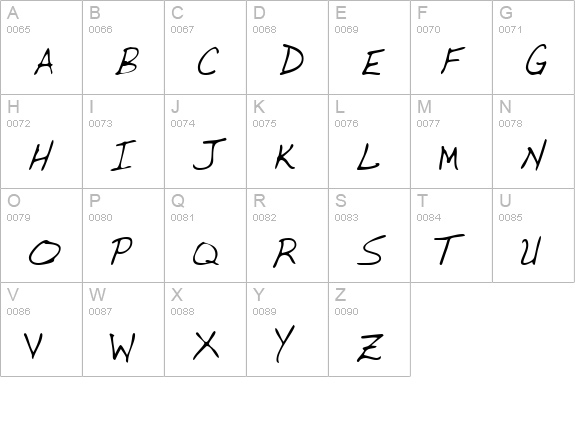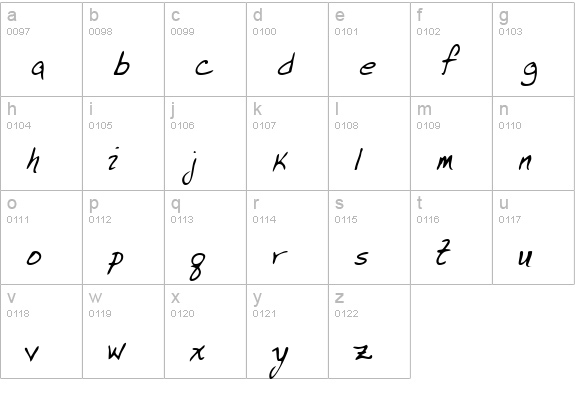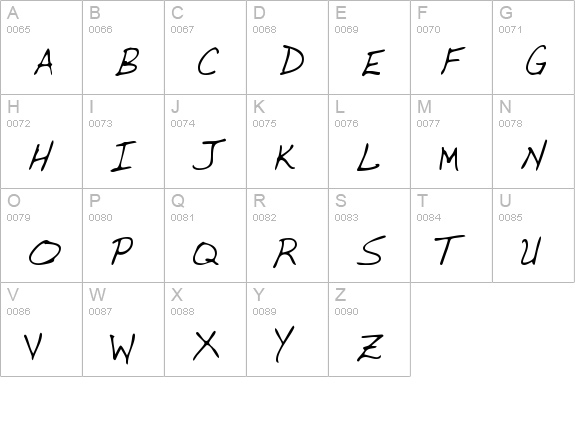
DunleysHand Regular is the standard, neutral variant in the DunleysHand typeface family \xE2\x80\x94 well suited to general body text, paragraphs, and standard typographic work.
DunleysHand Regular font is a charming and elegant typeface that exudes a sense of warmth and friendliness. With its smooth curves and balanced proportions, this font is perfect for adding a personal touch to your designs. Whether you're working on invitations, greeting cards, or branding materials, DunleysHand Regular is sure to make a lasting impression. Best of all, DunleysHand Regular is available for free download at FontsMarket.com. You can easily access this beautiful font and start using it in your projects without any cost. Don't miss out on the opportunity to enhance your designs with the graceful and versatile DunleysHand Regular font. Download it today and let your creativity shine!